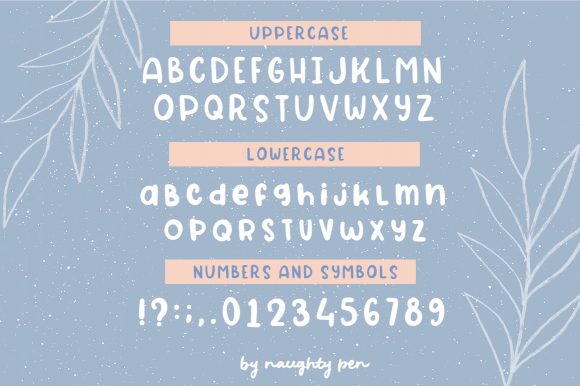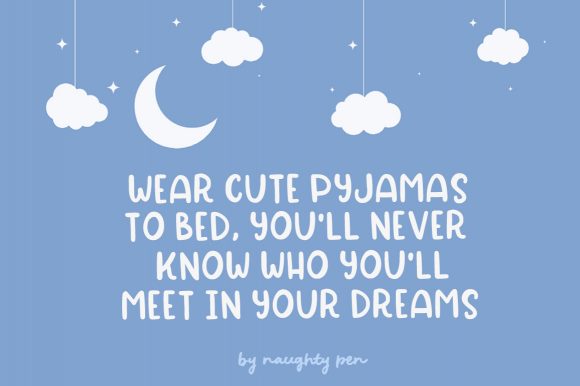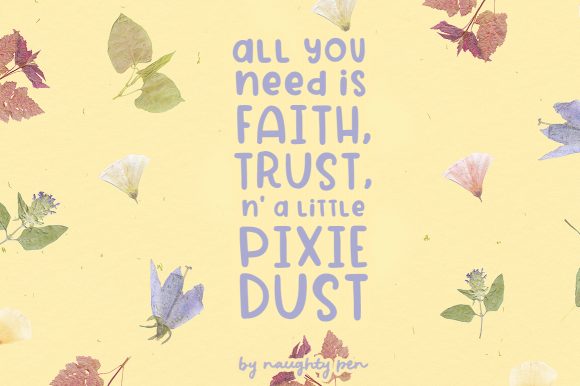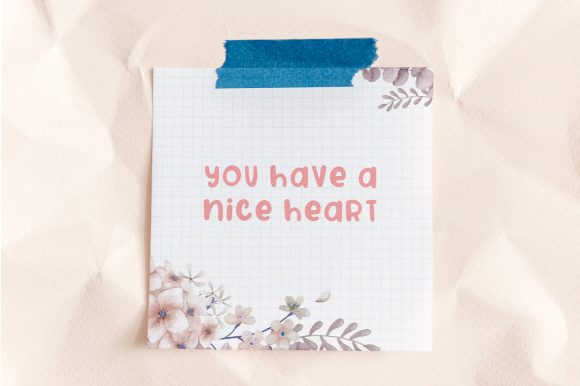
The Ultimate Guide to Christine Font: Adding a Youthful Touch to Your Designs
I’ll never forget the time I was working on a project for a children’s brand, and I was struggling to find the perfect font that would capture the playful and youthful vibe I was going for. The client wanted something that would appeal to kids and parents alike, but I was coming up blank. That’s when I stumbled upon Christine Font, and it was love at first sight! 💕
Christine is a cute & friendly display font that’s perfect for adding a touch of whimsy to your designs. With its incredibly youthful feel, it’s no wonder it’s become a favorite among designers, crafters, and creative hobbyists. In this article, we’ll dive into the world of Christine Font, exploring its features, how to use it, and what makes it so special.
An Honest Review of Christine Font
So, what makes Christine Font so lovable? Here are some of the things that I love about it:
- ✨ Cute and playful design: Christine Font has a chunky, lettered design that’s perfect for making your designs come alive!
- ✅ Easy to read: Despite its playful design, Christine Font is surprisingly easy to read, even at smaller sizes.
- 💡 Versatile: Christine Font is perfect for a wide range of design projects, from posters and flyers to social media graphics and crafts.
Of course, no font is perfect, and Christine Font has a few small quirks:
- 🤔 Limited use in body text: While Christine Font is amazing for headlines and titles, it’s not the best choice for body text. It’s a display font, after all!
- ⚠️ May not work well in small sizes: Christine Font is designed to be bold and chunky, so it may not work well in very small sizes. Use it at larger sizes for maximum impact!
One of the best things about Christine Font is its OpenType features and glyphs. With its range of stylistic alternates and swashes, you can customize your text to make it truly unique. Here are some tips for exploring OpenType features in Christine Font:
The Story Behind Christine Font
Christine Font was designed with one goal in mind: to create a font that’s both cute and friendly. The designer, inspired by the playful world of children’s books, set out to create a font that’s perfect for designs that need a youthful touch. With its chunky lettering and playful design, Christine Font is sure to bring a smile to anyone’s face.
| What is Christine Font? | Christine Font is a cute & friendly display font that’s perfect for adding a youthful touch to your designs. |